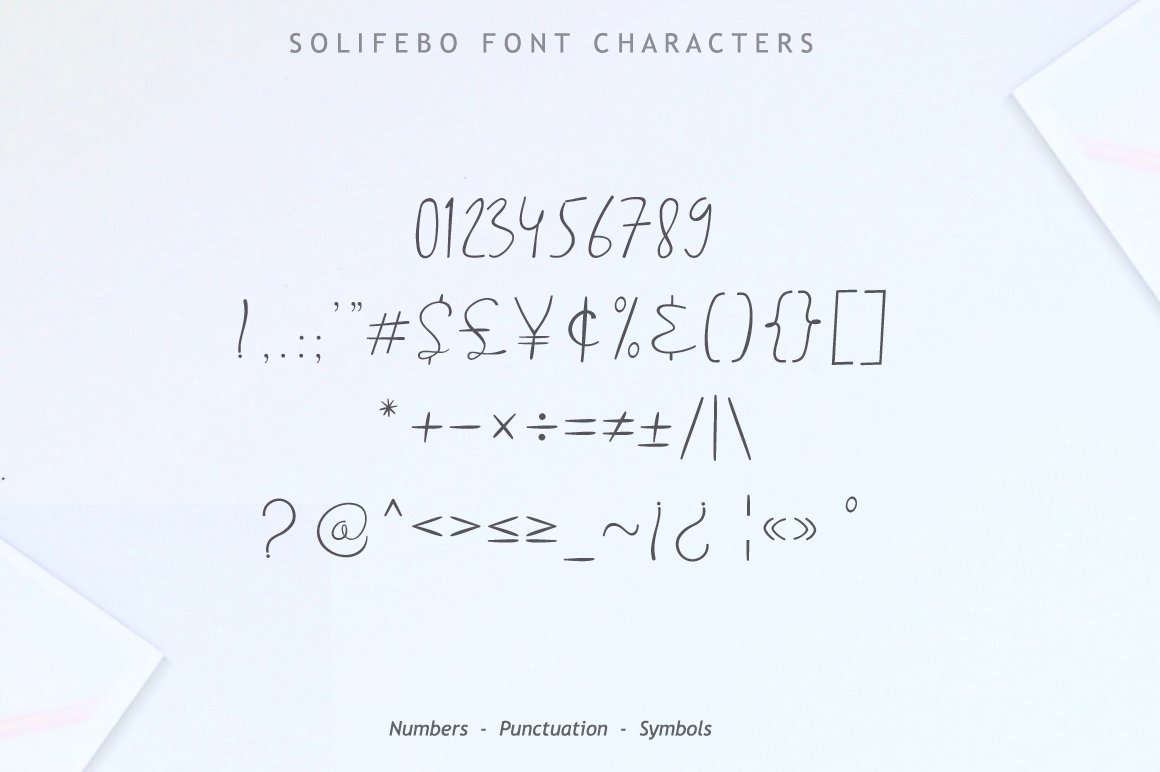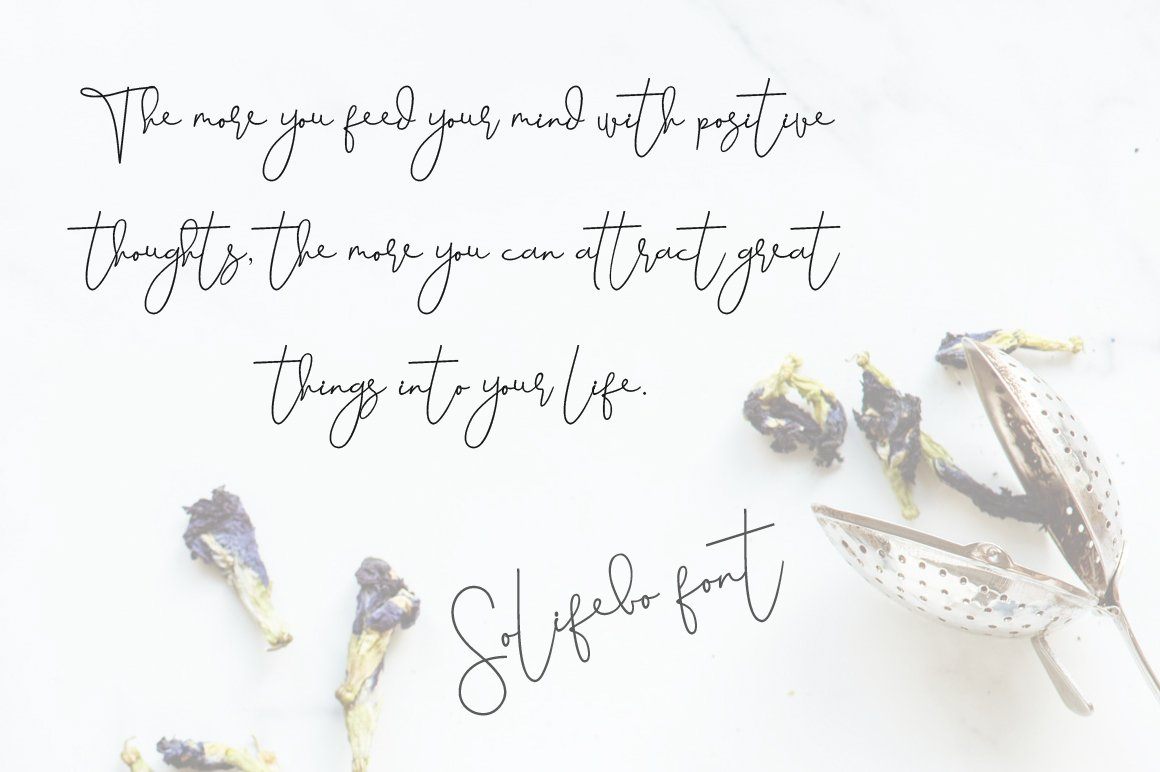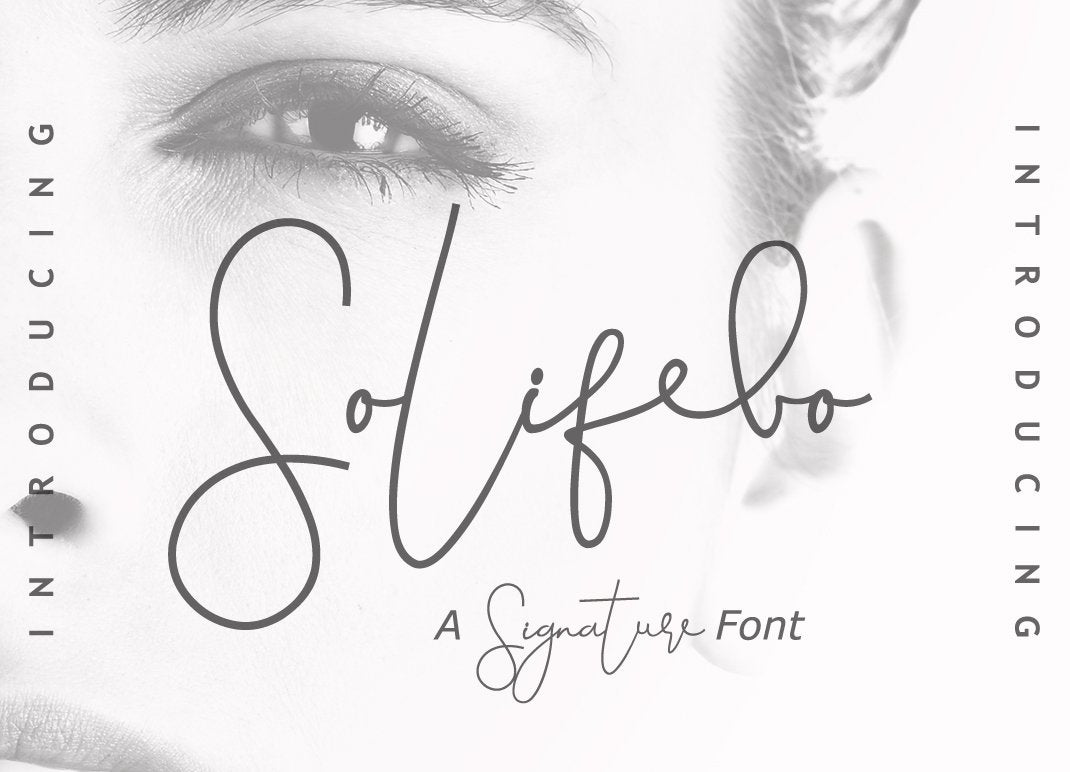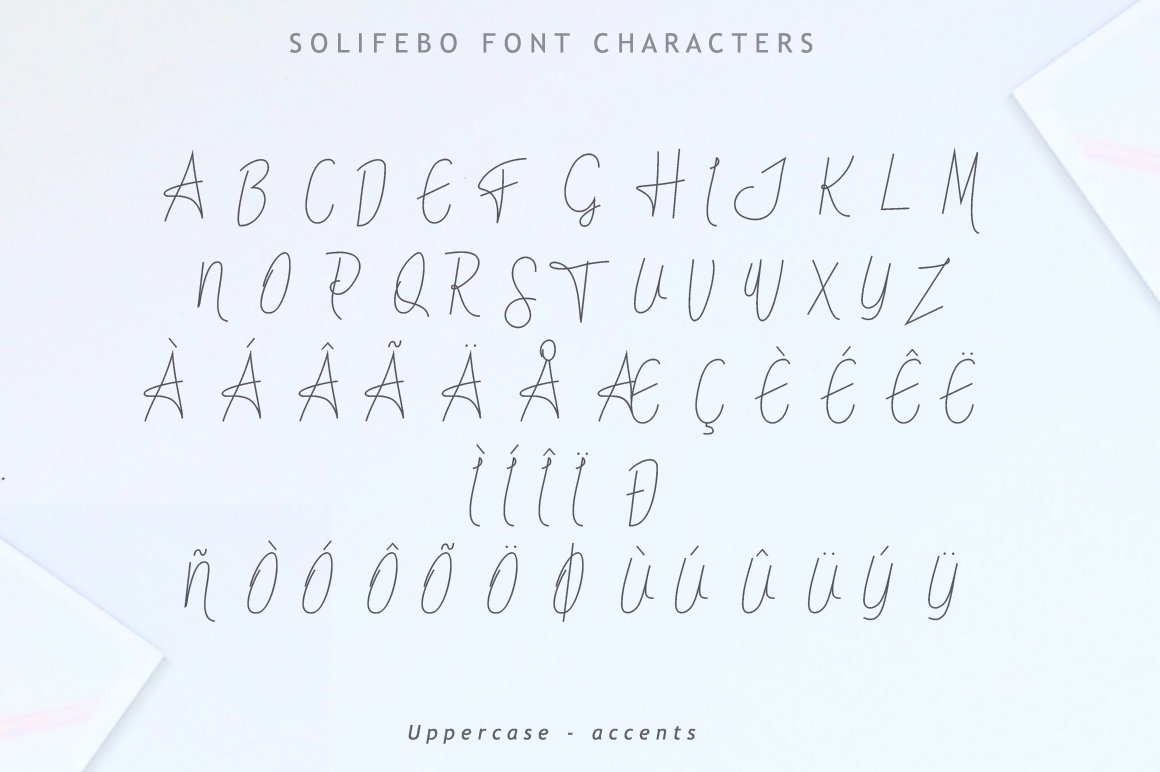
About Solifebo Font
Solifebo Font Solifebo is a signature font with beautiful curves. Its curves make it dynamic typeface. Solifebo was designed with natural feel of handwritten style and beautiful ligatures, to improve your design projects. Perfect for signatures, quotes, wedding invites, logos, branding, product packaging, headers, and more. Features : Available in single OTF and TTF files Uppercase A-Z Lowercase a-z Numbers 0-9 Accents Punctuation PUA Encoded Multilingual support Support for Windows, Mac and Linux OS Make sure ligature feature in your program is enabled. If you have any questions regarding this product kindly leave your message through the contact form, comment field or contact us at  . Enjoy the font!! Thank you.. Don’t forget to visit our shop and check our products click here